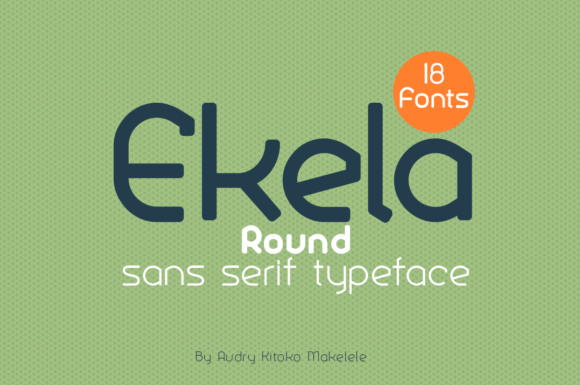
Dive into the world of Ekela Font, a sans serif font family that exudes minimalism and rounded elegance. Crafted with precision by audrykitoko, this font is a visual symphony, perfect for adding a touch of sophistication to your digital creations.
With its clean lines and harmonious curves, Ekela Font is a versatile chameleon, effortlessly adapting to a vast array of projects. Unleash your creativity and watch as this font transforms your designs, making them shine with a unique charm.
Ekela Font's strength lies in its versatility. It seamlessly blends with various design aesthetics, from the classic and timeless to the bold and contemporary. Whether you're creating logos, branding materials, website designs, or social media graphics, Ekela Font will elevate your work to new heights.
Experience the magic of Ekela Font in horizontal print and see how it captivates your audience with its inherent beauty. The carefully crafted letterforms dance across the page, creating a visual feast that commands attention. Let Ekela Font be your ally in crafting designs that leave a lasting impression.
Embrace Ekela Font and embark on a creative journey where your ideas take center stage. Allow this font to be the conduit through which your vision comes to life, leaving an indelible mark on the digital landscape. Its versatility and timeless appeal make it a must-have in every designer's toolkit.